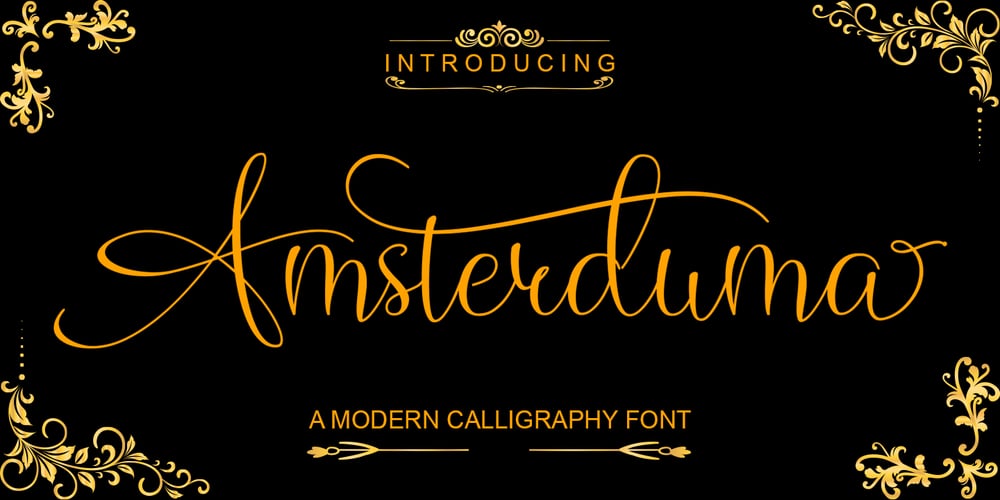
Amsterduma Font Family was designed by Muhammad Rayyan and published by Slex Studio. Amsterduma contains 1 styles and family package options. Amsterduma is a round lettered handwritten font, that feels equally charming and elegant. This font is PUA encoded which means you can access all of the glyphs and swashes with ease! It features a varying baseline, smooth lines, gorgeous glyphs and stunning alternates.Fall in love with its incredibly versatile style and use it to create spectacular designs!